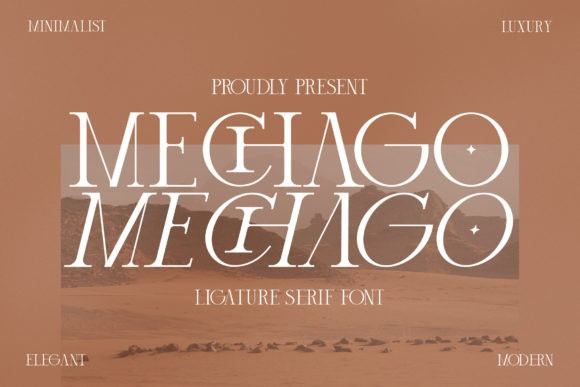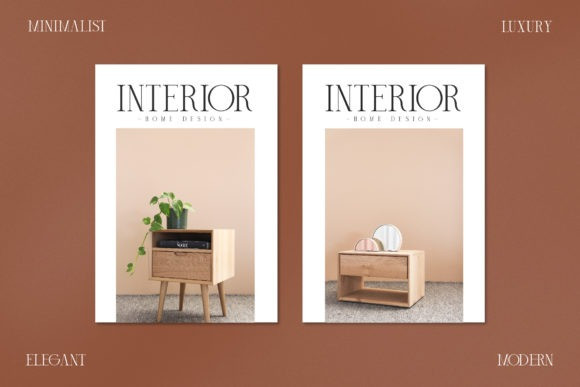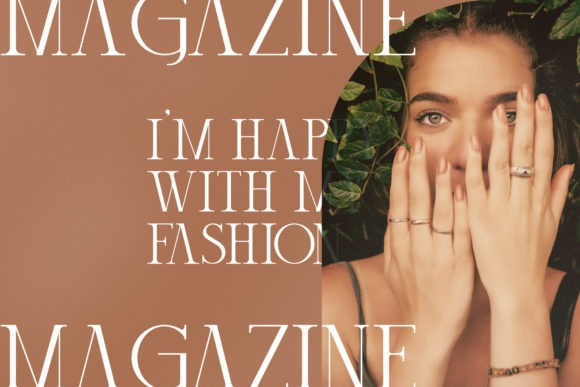
Mechago Font
Mechago is a tall and thin lettered serif font. It will elevate a wide range of crafting ideas, from cards, to branding, labels and much more.